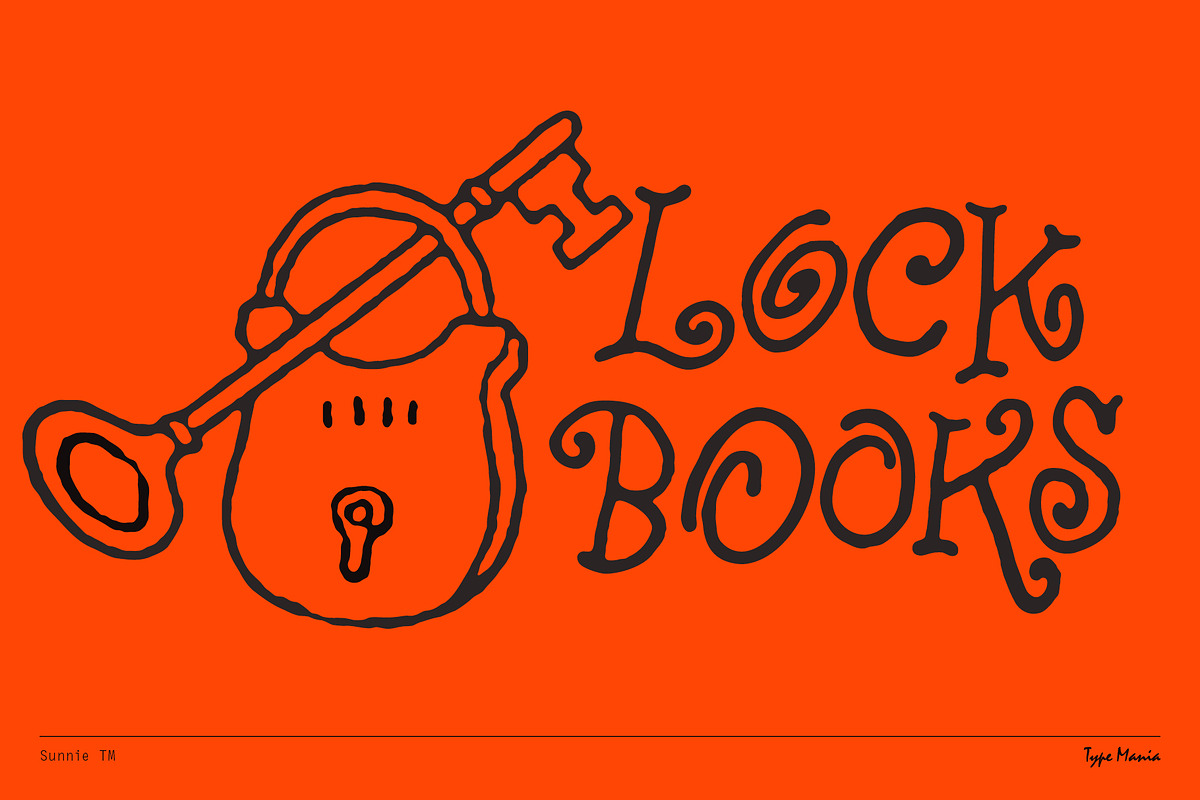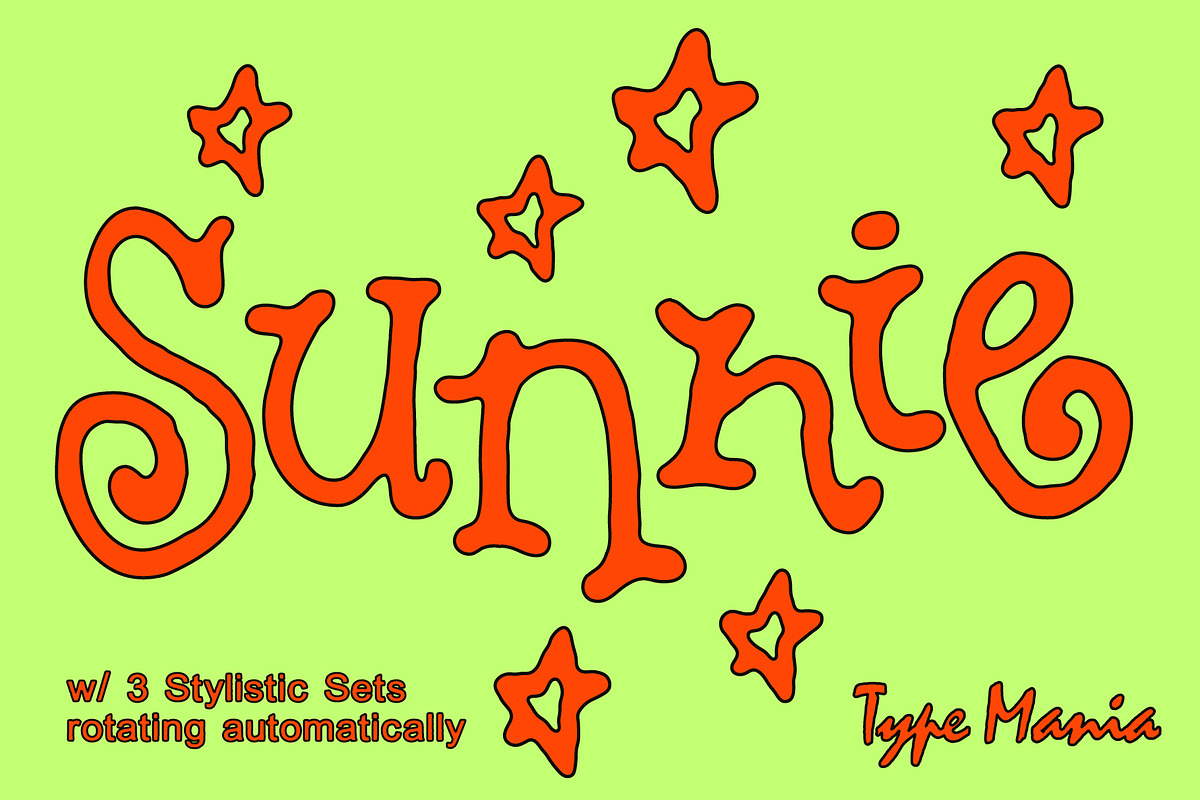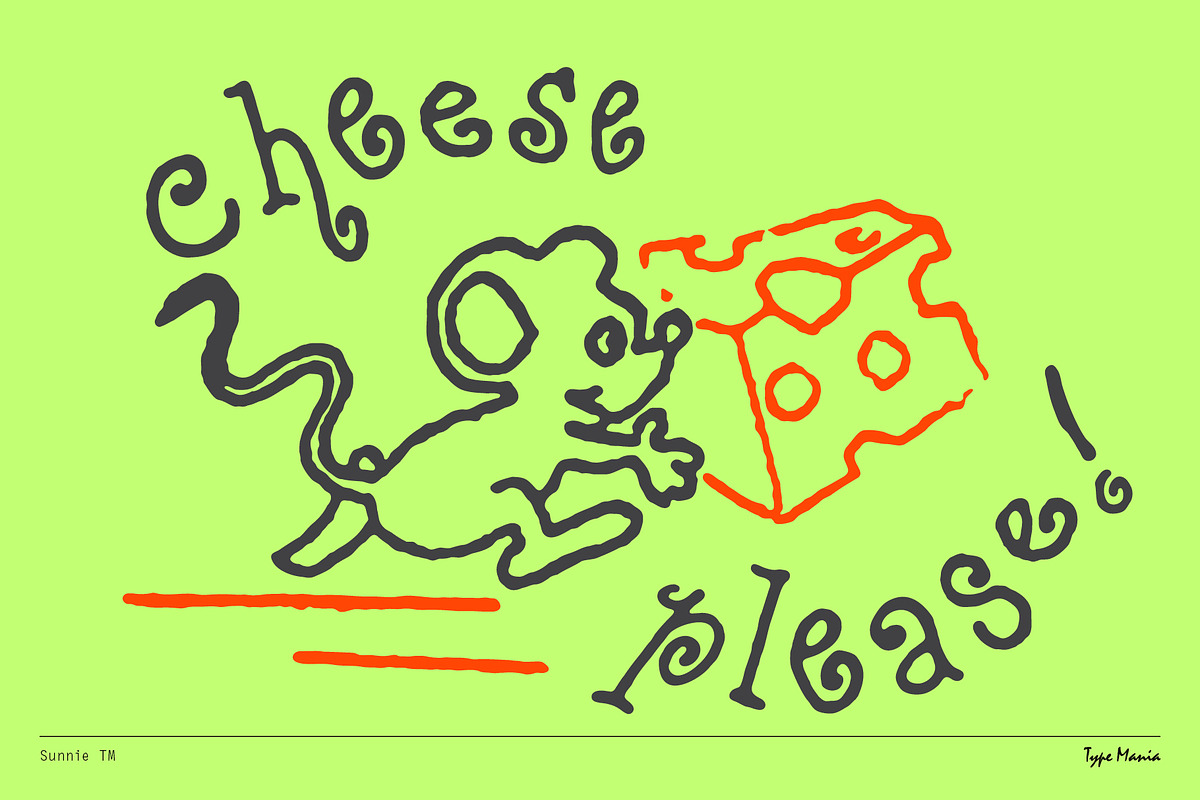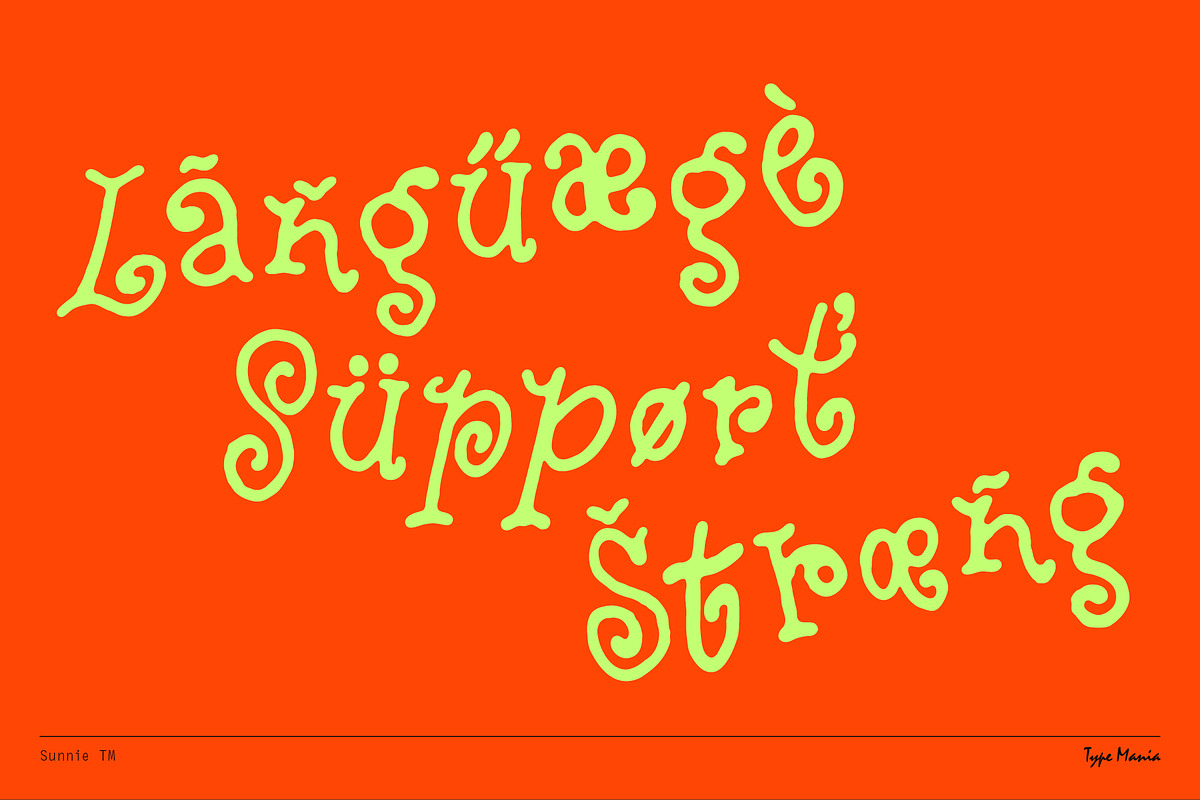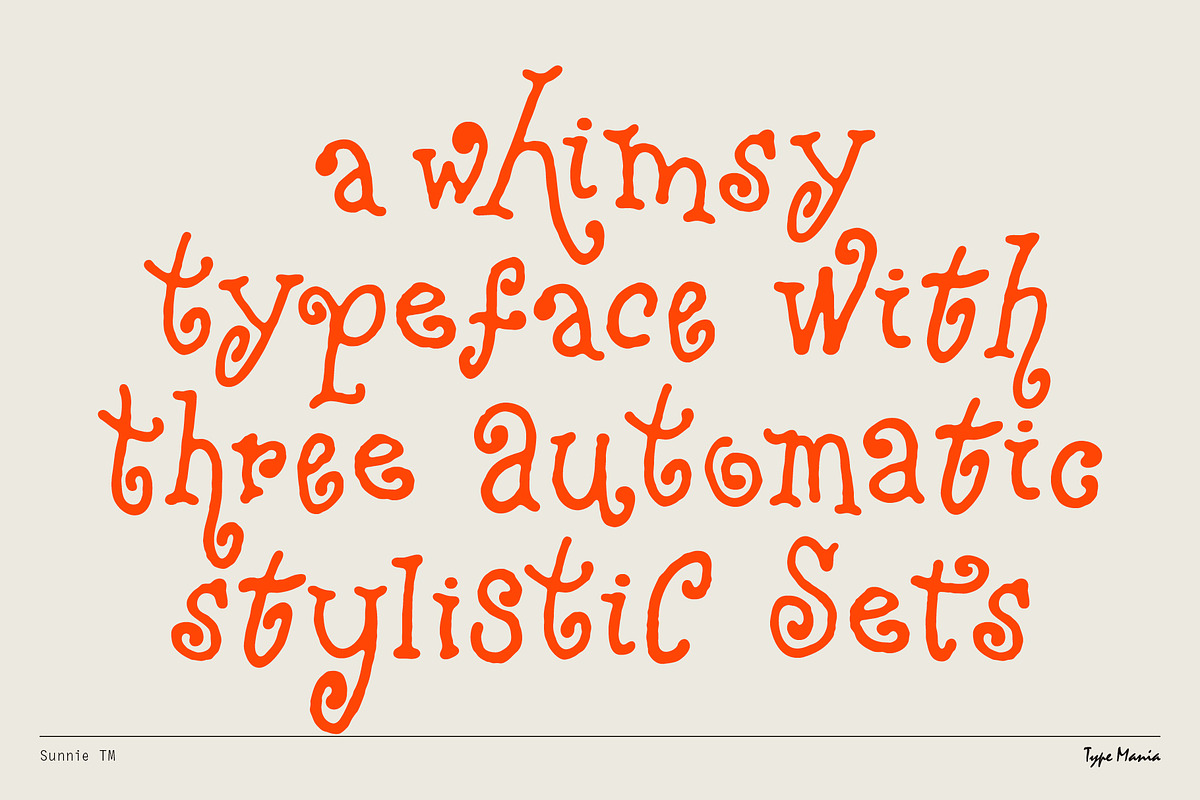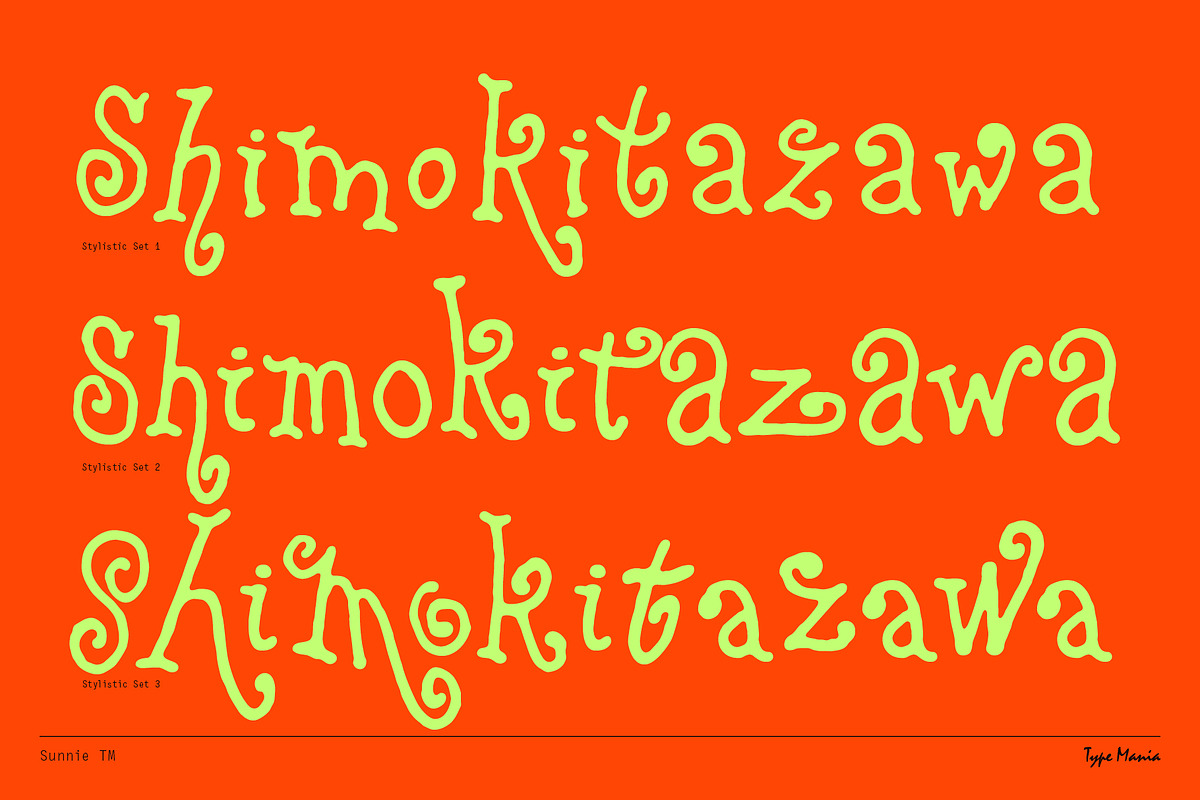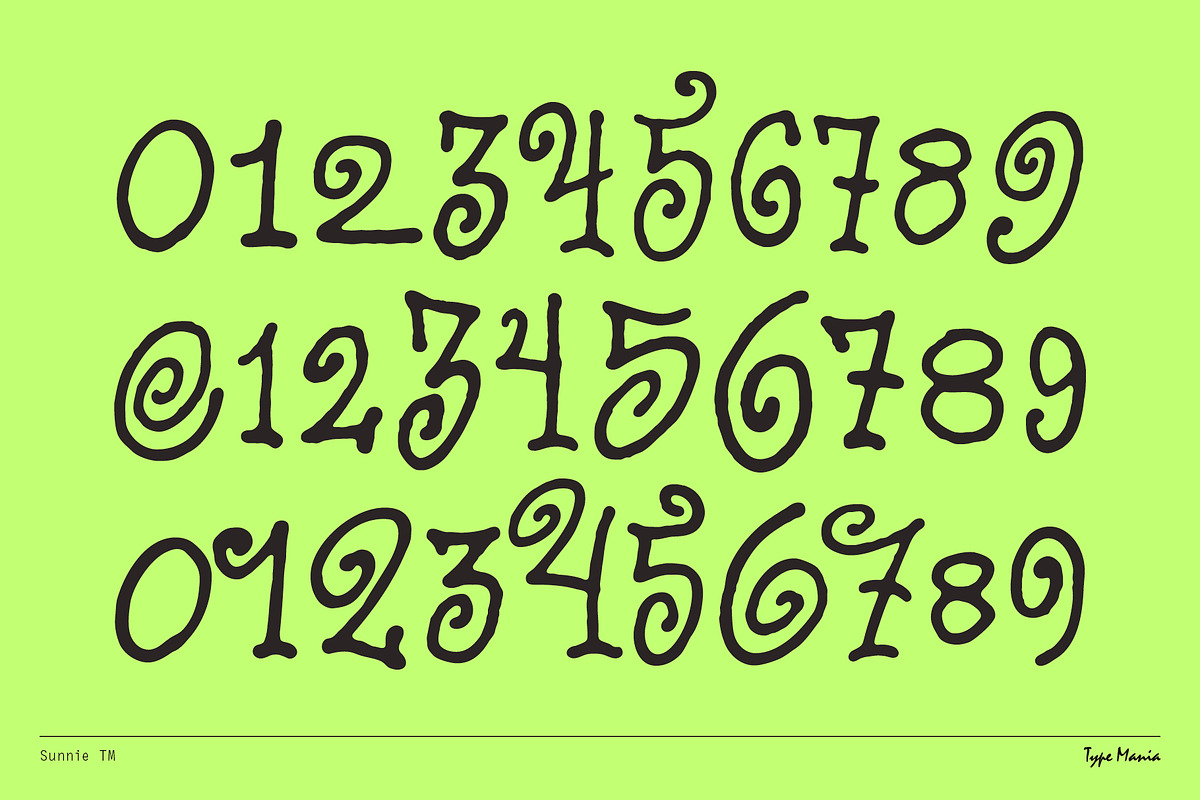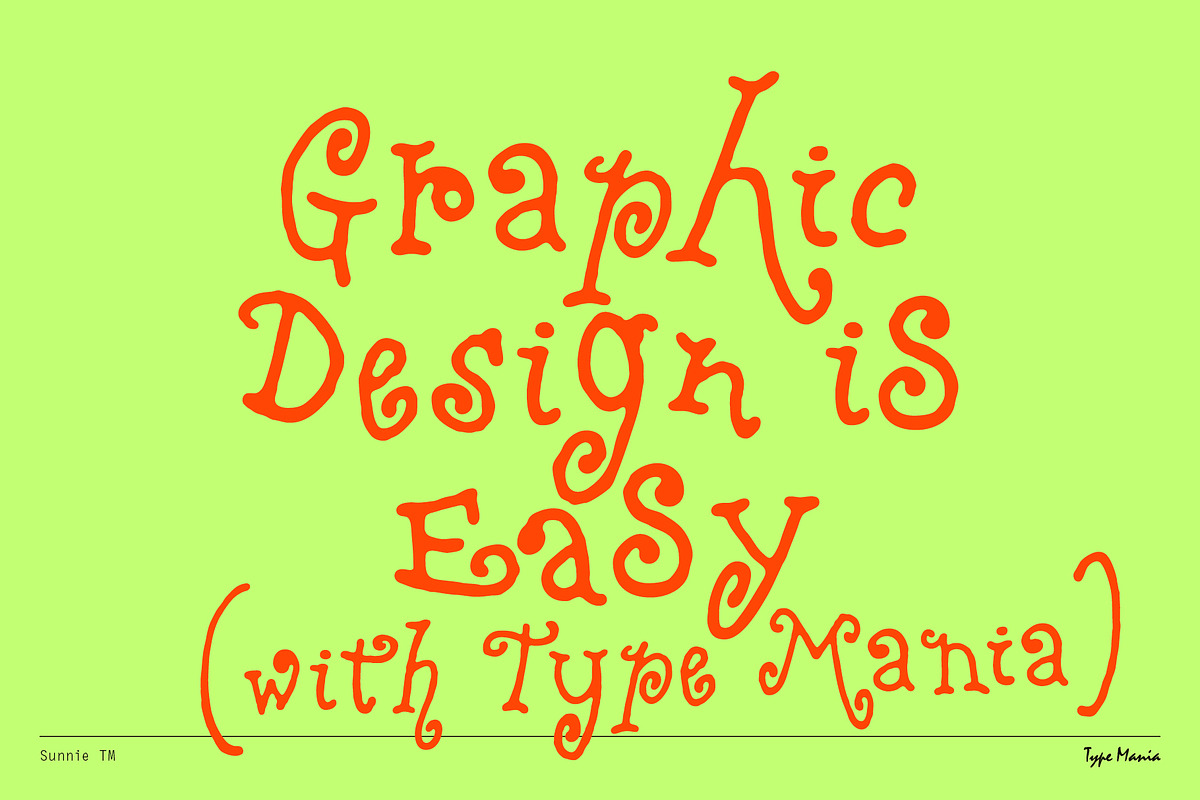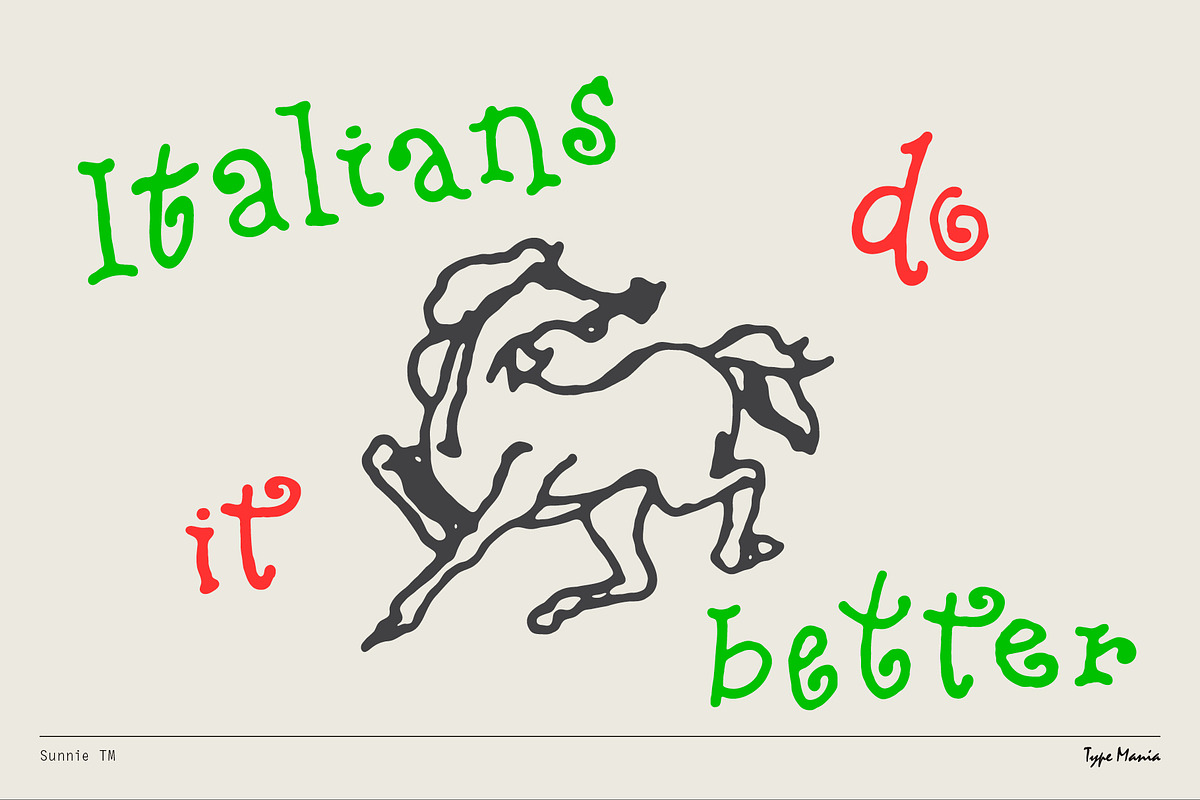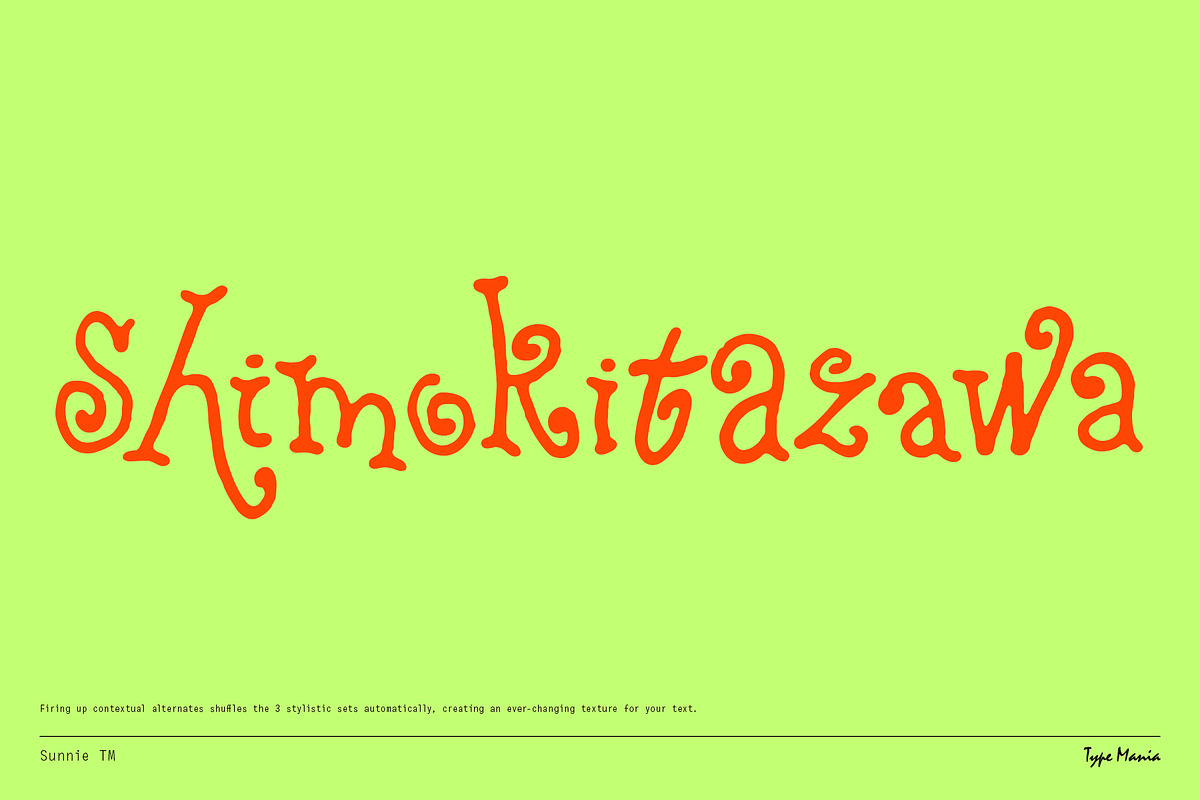
Sunnie TM – Y2K Script
Sunnie TM is a loose scribble that rotates three stylistic sets automatically with the contextual alternates fired up. Gives you a more natural rhythm straight out of the box. Excellent.
OpenType features
3 stylistic sets
The font is programmed to automatically shift between the stylistic sets